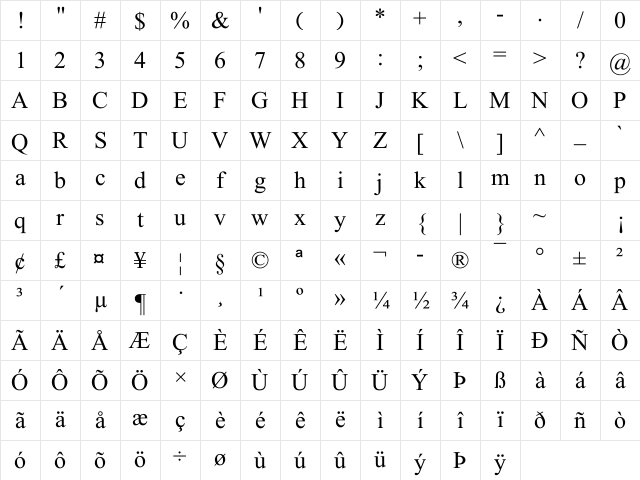
Jameel Noori Nastaleeq Regular Free Font
Jameel Noori Nastaleeq Regular
Designer: Urdu Lover
Design Context for Jameel Noori Nastaleeq
Jameel Noori Nastaleeq is a composed and adaptable typeface that performs quietly and consistently across a wide range of design contexts.
Pro Tip: Use Jameel Noori Nastaleeq in both headline and body roles to test its range before committing to a single application.